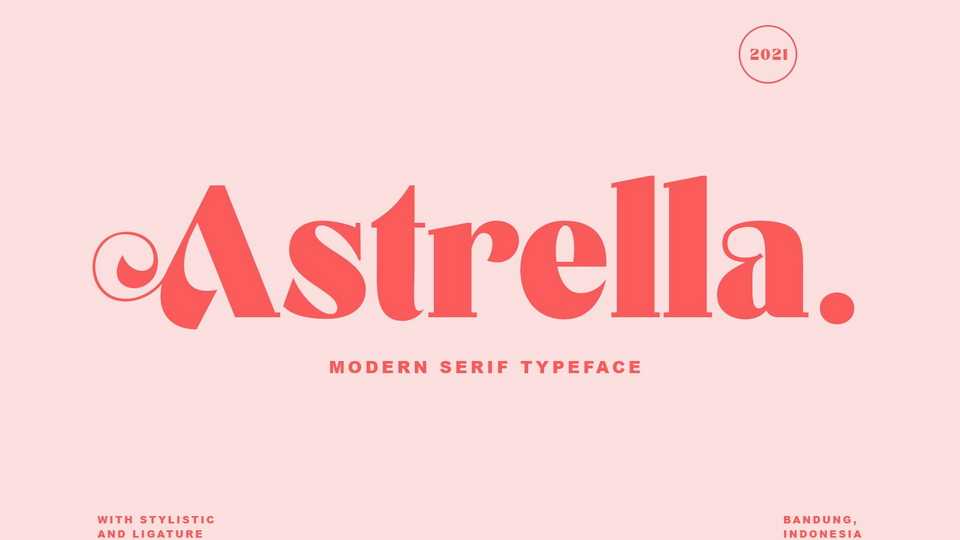
Download Astrella font, a serif display typeface that has a classic, feminine and elegant style. Astrella font is perfect for many different projects such as logos and branding, invitation, wedding designs and more.
Designer: Handpik Design